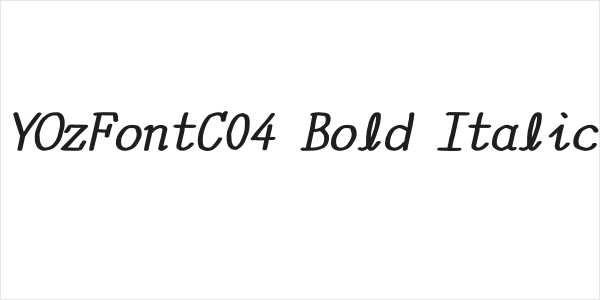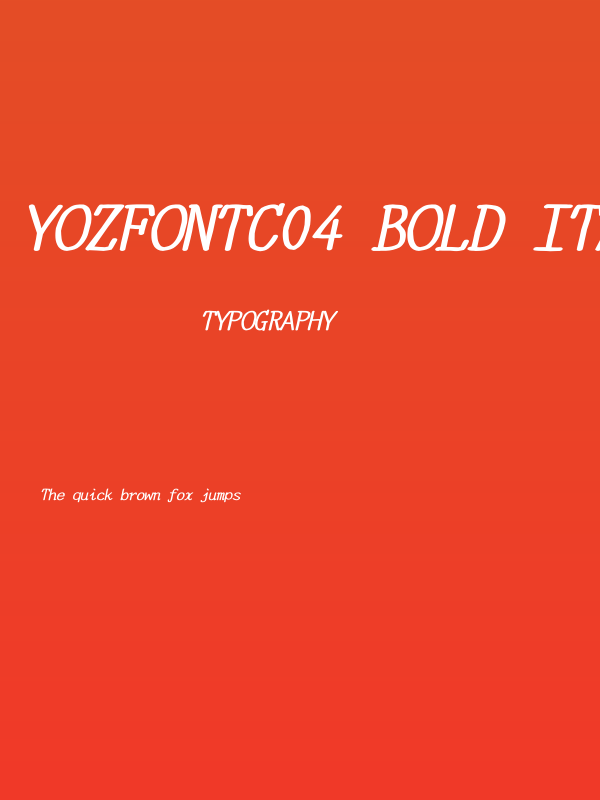
YOzFontC04 Bold Italic Font
YOzFontC04 Bold Italic Description
This font features a dynamic and elegant style, characterized by its bold and italicized form. The uppercase letters exhibit a slight slant, adding a sense of motion and sophistication. The lowercase letters maintain a consistent flow, enhancing readability while retaining a stylish flair. The numerals are distinct and clear, complementing the overall aesthetic. Special characters are well-integrated, ensuring versatility in various design contexts. The font's bold weight and italic style make it suitable for creating impactful and eye-catching designs.
Use CaseHeadlines, Logos, Invitations
Proposed ProjectsIdeal for branding, headlines, posters, and invitations where a touch of elegance and emphasis is desired.